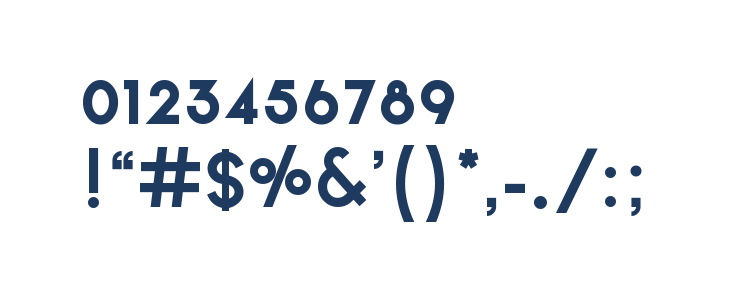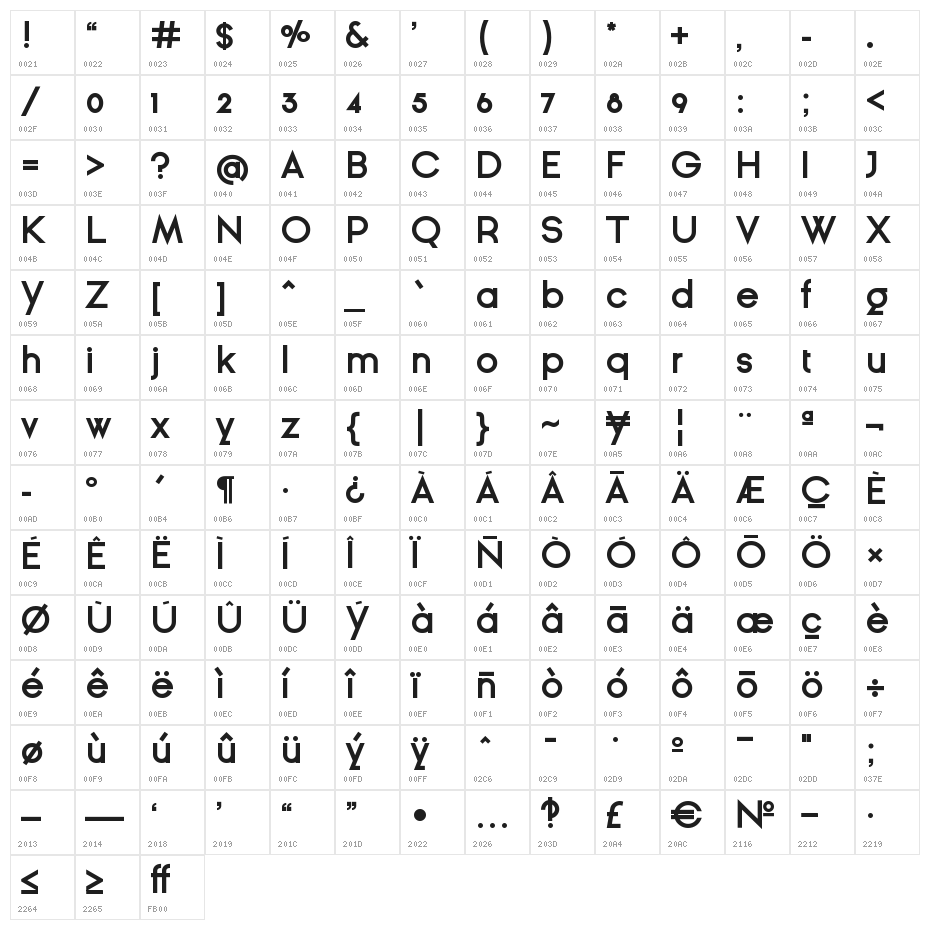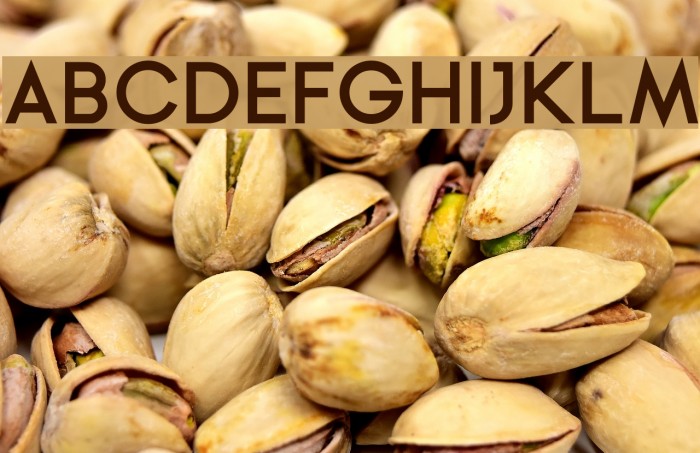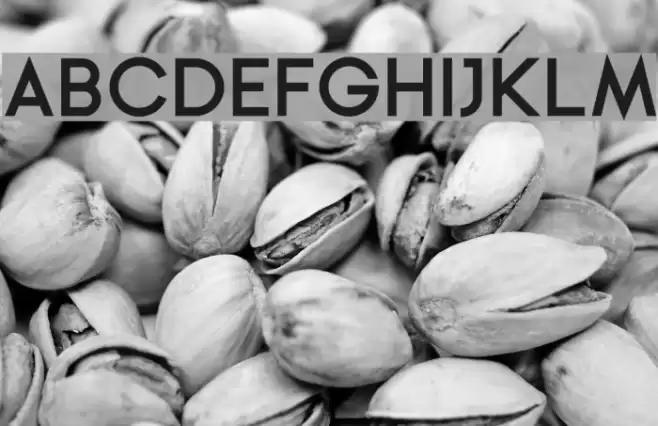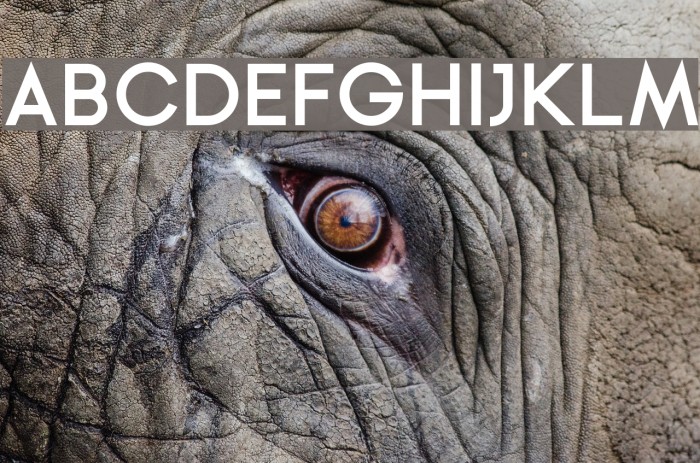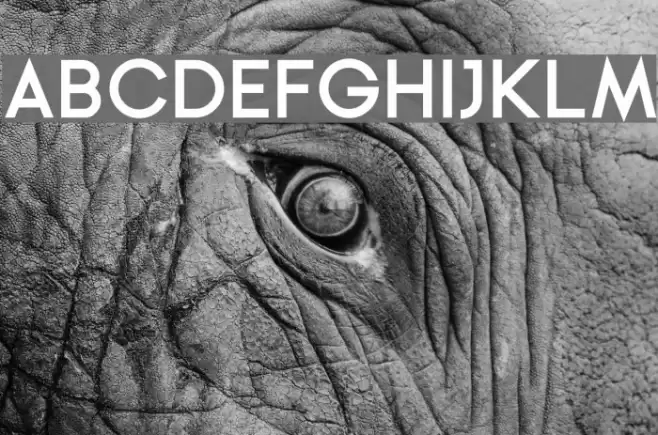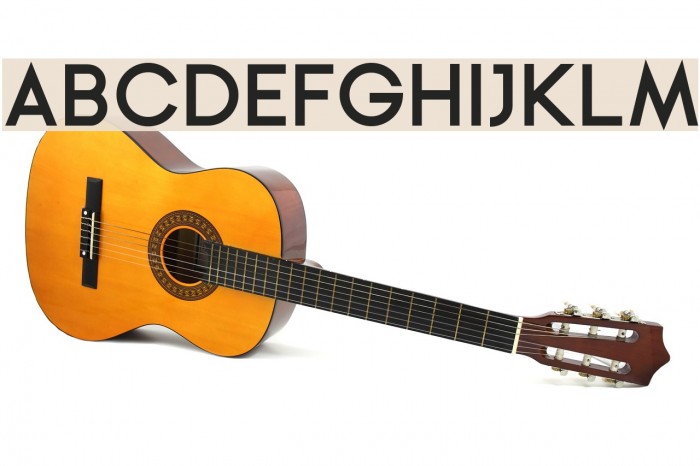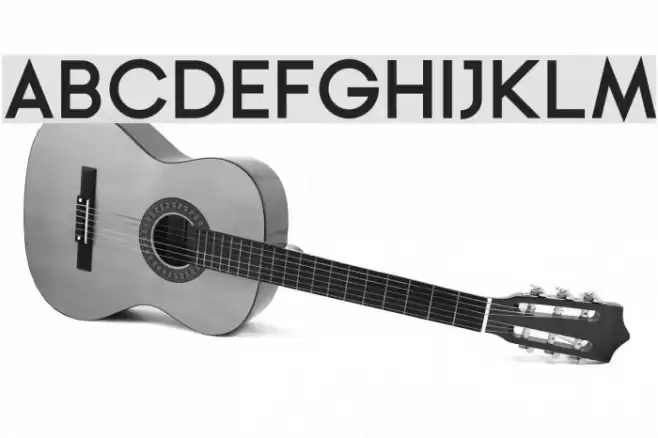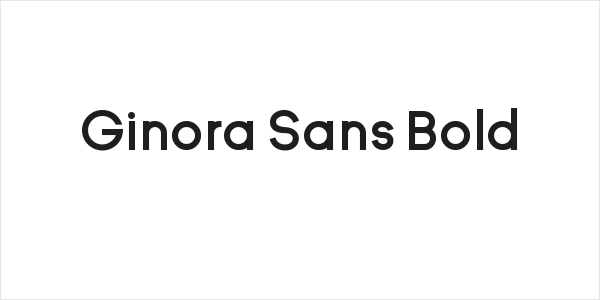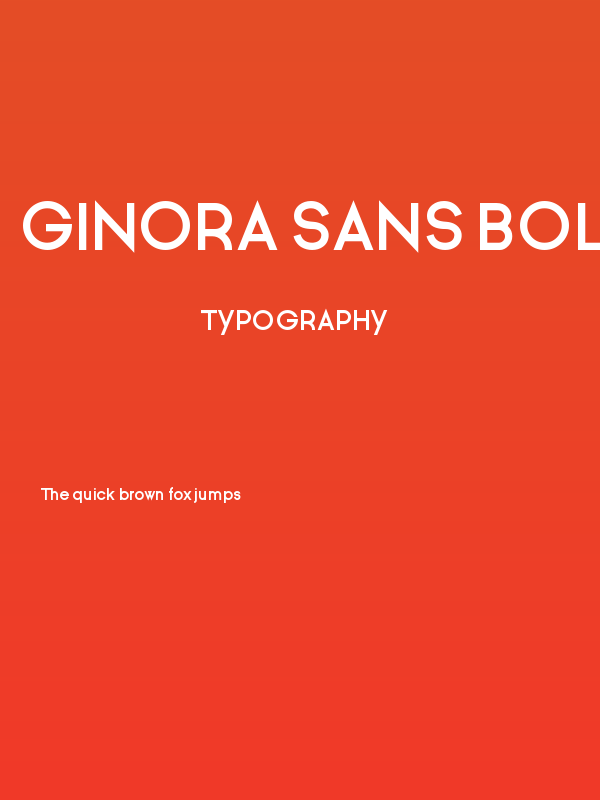
Ginora Sans Bold Font
Ginora Sans Bold Description
This font features a clean and modern sans-serif style with bold, uniform strokes that convey strength and clarity. The characters are well-proportioned, with a consistent weight that enhances readability. The uppercase letters are slightly taller than the lowercase, providing a balanced and harmonious look. The numerals are clear and distinct, making them suitable for various applications. Special characters are designed with the same boldness, ensuring they stand out without overpowering the text. Overall, this font is versatile and suitable for both digital and print media.
| Proposed Projects | Ideal for branding, headlines, posters, and digital media where clarity and impact are essential. |